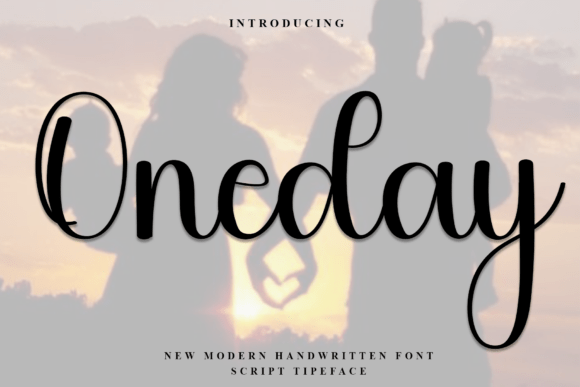
Introducing Oneday Font: The Enchanting Handwritten Script to Elevate Your Designs
In the realm of typography, few fonts manage to capture the essence of elegance and romance as effectively as Oneday Font. This enchanting handwritten script font has been making waves in the design community, and for good reason. With its versatile nature and wide spectrum of applications, Oneday Font is the perfect addition to any designer’s toolkit. Whether you’re working on a greeting card, crafting headlines, or embarking on a larger project, Oneday Font promises to infuse your work with a touch of sophistication and whimsy.
The Allure of Oneday Font
Oneday Font stands out in a crowded field of typefaces due to its unique blend of elegance and playfulness. Its handwritten nature gives it a personal and intimate feel, making it ideal for projects where a human touch is desired. The font’s enchanting curves and fluid strokes evoke a sense of romance and warmth, capable of transforming even the most mundane text into a visually appealing piece of art.
Versatility at Its Finest
One of the key strengths of Oneday Font is its incredible versatility. This script font can be used across a wide range of applications, from the personal and decorative to the professional and promotional. Here are just a few examples of how Oneday Font can elevate your designs:
- Greeting Cards: Add a touch of elegance to your greeting cards, making them stand out for birthdays, anniversaries, weddings, and other special occasions.
- Headlines and Titles: Use Oneday Font to create eye-catching headlines and titles for blogs, magazines, and websites, adding a dash of personality to your content.
- Branding and Logos: Incorporate Oneday Font into your brand’s identity to convey a sense of sophistication and approachability.
- Social Media Graphics: Enhance your social media presence with custom graphics that feature Oneday Font, making your posts more engaging and memorable.
- Packaging: Stand out on store shelves with product packaging that features Oneday Font, adding a unique and luxurious feel to your brand’s offerings.
Why Choose Oneday Font?
With so many fonts available to designers today, what sets Oneday Font apart? Here are a few reasons why designers and brands are falling in love with Oneday Font:
- Romantic and Elegant: Oneday Font brings a level of sophistication and romance to any project, making it perfect for designs that aim to evoke emotion.
- Highly Readable: Despite its elegant and cursive nature, Oneday Font remains highly readable, even at smaller sizes, making it suitable for a wide range of applications.
- Easy to Pair: Oneday Font pairs well with a variety of other typefaces, allowing designers to create visually appealing and balanced designs.
- Constantly Updated: The creators of Oneday Font are committed to updating and improving the font, ensuring that users have access to the latest and greatest features.
Tips for Using Oneday Font Effectively
To get the most out of Oneday Font, here are a few tips to keep in mind:
- Mix and Match: Don’t be afraid to experiment with different weights and styles of Oneday Font to add depth and interest to your designs.
- Consider Your Audience: Keep in mind the preferences and expectations of your target audience when using Oneday Font, ensuring that it aligns with your brand’s identity and message.
- Use it Sparingly: While Oneday Font is incredibly versatile, it can be overwhelming if overused. Balance it with other typefaces to create visual interest.
- Play with Ligatures: Take advantage of Oneday Font’s ligatures to add a touch of whimsy and personality to your text.
Oneday Font is more than just a typeface; it’s a design tool that can transform your projects with its enchanting and romantic appeal. Its versatility, elegance, and readability make it an excellent choice for a wide range of applications, from personal greeting cards to professional branding and marketing materials. By incorporating Oneday Font into your design toolkit, you’ll be well on your way to creating visually stunning and emotionally resonant designs that leave a lasting impression.
- What is Oneday Font?
- Oneday Font is an enchanting handwritten script font known for its elegant and romantic feel, suitable for a wide range of design applications.